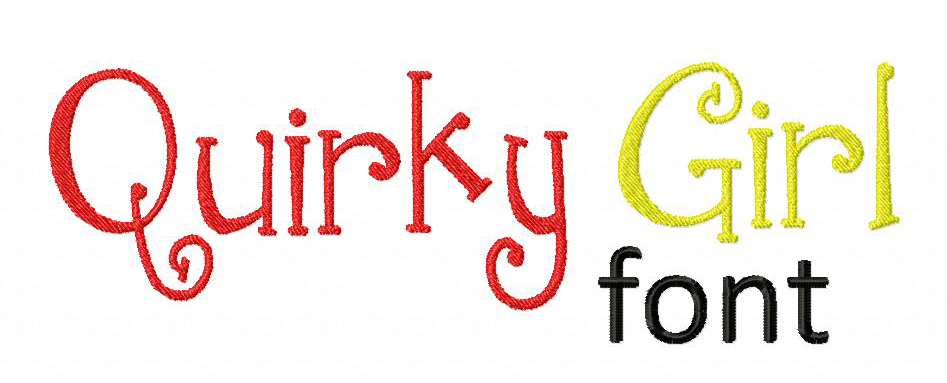
The Quirky Girl Machine Embroidery Font Set includes all Uppercase and Lowercase Letters, Numbers and Bonus Punctuation in all of the following sizes: 1" 2" & 3"
Font Created by Kimberly Geswein and digitized by BlastoStitch.com